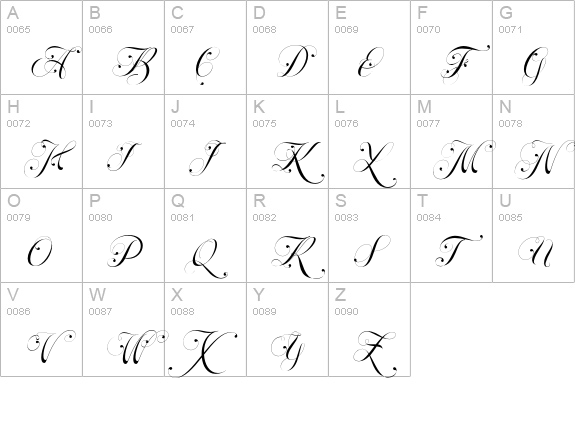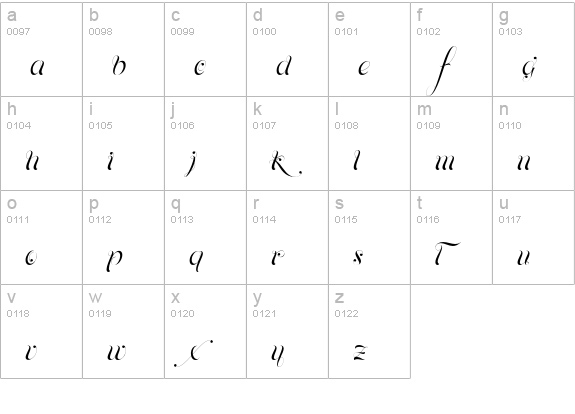
Parfait Script Standard is a beautifully crafted font that exudes elegance and sophistication. Its flowing and graceful script style adds a touch of charm to any design project. Perfect for wedding invitations, branding, and elegant packaging, this font is sure to make a lasting impression. What's even better is that Parfait Script Standard is available for free download at FontsMarket.com. You can easily add this stunning font to your collection without any cost, allowing you to elevate your designs without breaking the bank. Don't miss out on this opportunity to enhance your projects with the timeless beauty of Parfait Script Standard.